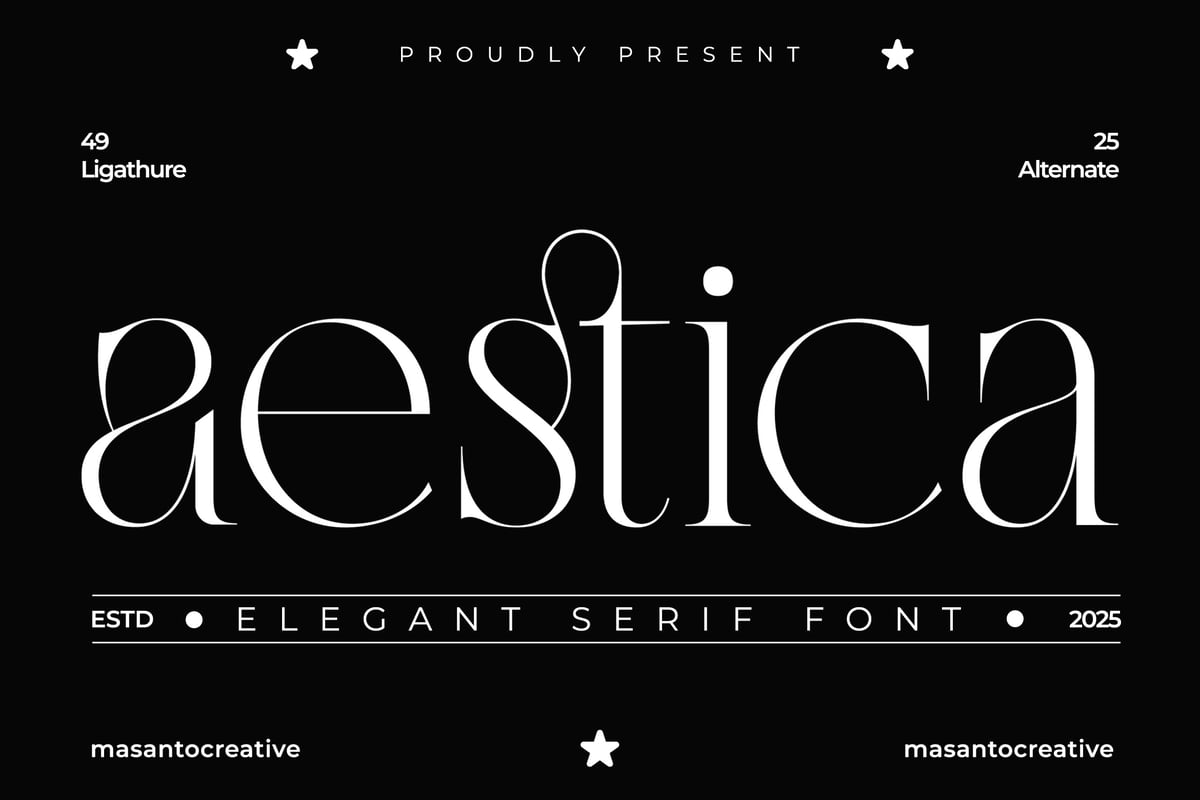
Aestica – Elegant Stylish Serif Font
A refined serif typeface built for luxury branding, editorial design, and high-end visual identities.
Aestica is an elegant stylish serif font that blends classic sophistication with modern flair. Its distinctive letterforms make it an ideal choice for fashion labels, beauty packaging, editorial layouts, and premium brand identities.
- 49 ligatures for fluid, editorial-quality typesetting
- 25 alternates to give your designs a unique, customized look
Whether you're designing a luxury tote, a skincare product label, or a high-fashion magazine spread, Aestica delivers the refined elegance your project demands.